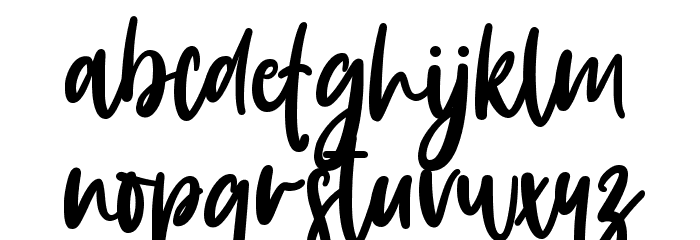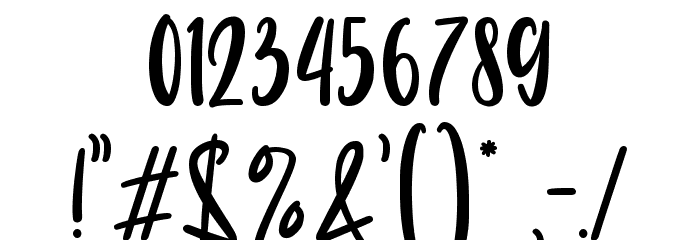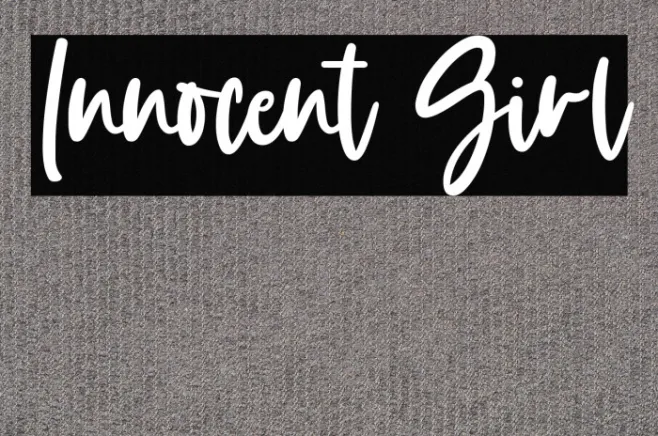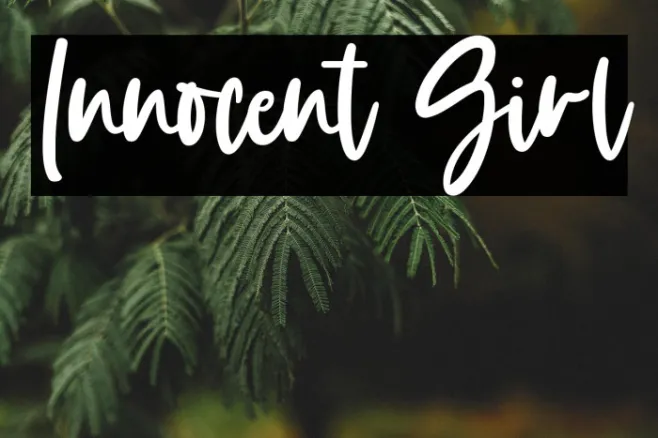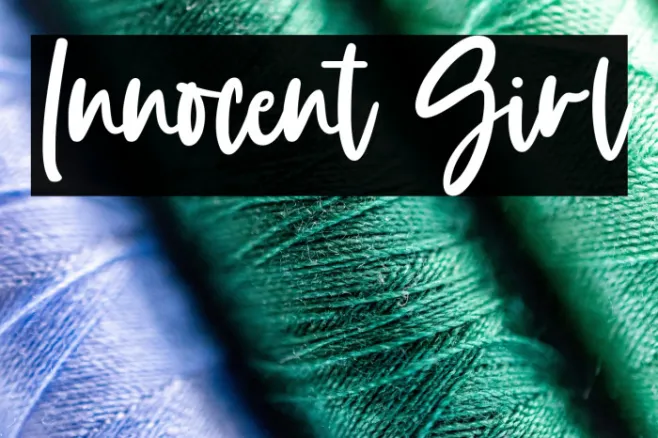
Innocent Girl Font
This font features a playful and energetic handwritten style, characterized by its fluid and dynamic strokes. The letters are bold and slightly slanted, giving a sense of movement and spontaneity. The uppercase characters are tall and expressive, while the lowercase letters maintain a consistent flow, enhancing readability. Numbers and special characters are designed to match the lively aesthetic, making the font versatile for various creative applications. The overall look is modern and youthful, suitable for projects that require a personal and informal touch.
A playful, bold handwritten font with dynamic strokes and a modern feel.
- Proposed Projects: Ideal for greeting cards, social media graphics, branding projects, and playful invitations.
- Category: Handwritten
- Overall Style: Modern, Playful
- Use Case: Headlines, Logos, Invitations